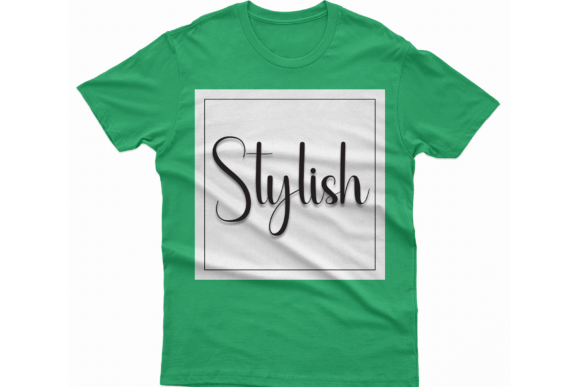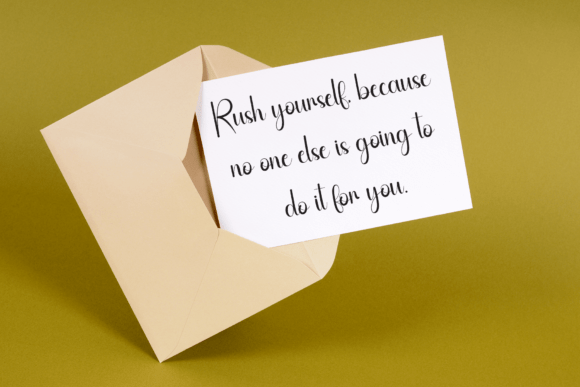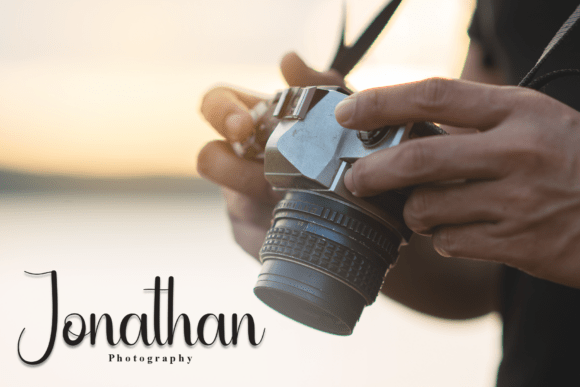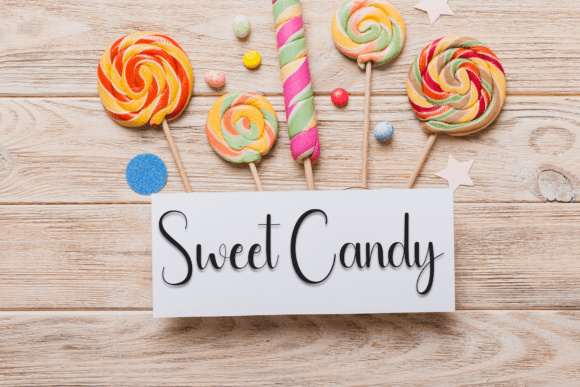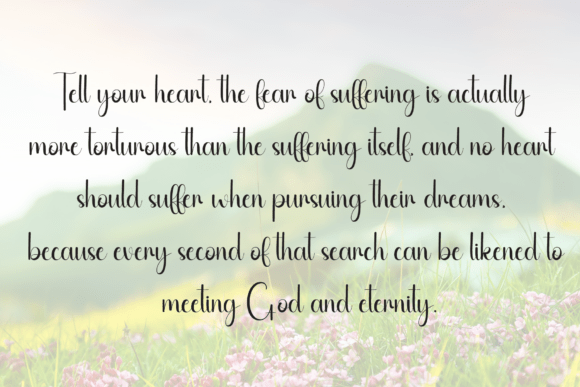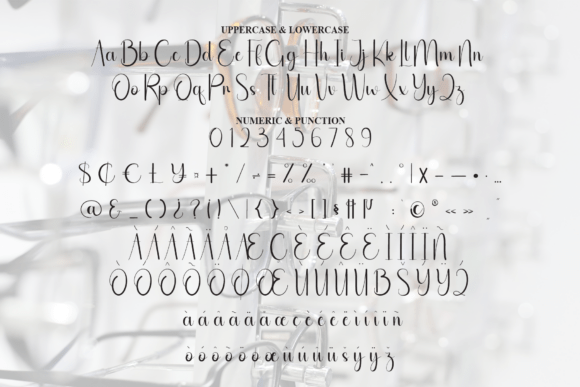
Introduction to Optical Font
Optical is a stylish handwritten script font that radiates elegance and fluidity.
Its smooth, flowing strokes create a natural and sophisticated feel, perfect for branding, invitations, and creative projects With a graceful balance of charm and modernity, this typeface adds a personal, artistic touch to any design.
Why Choose Optical Font?
Optical Font offers exceptional quality and versatility, making it a valuable addition to your design toolkit. Whether you’re creating for personal projects or commercial use, Optical Font delivers professional results.